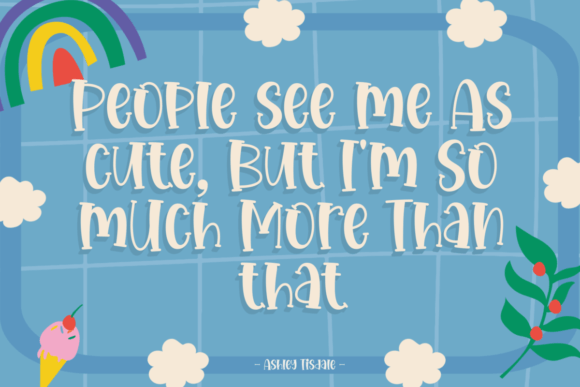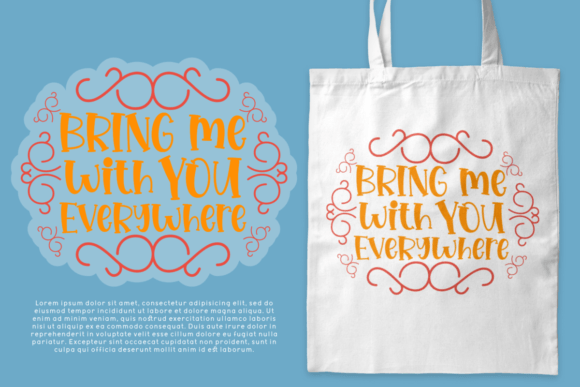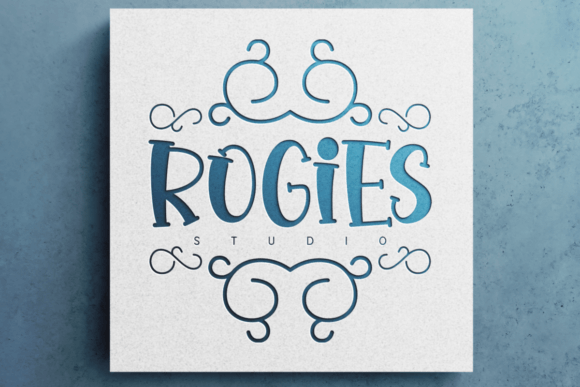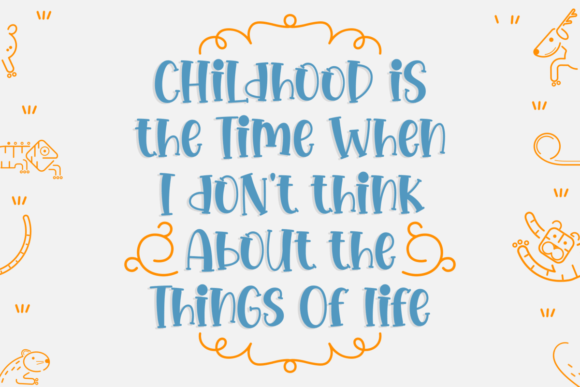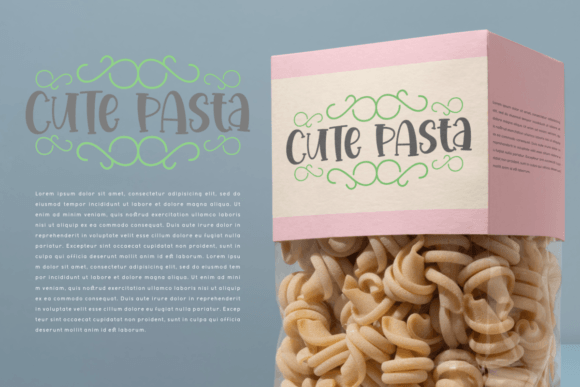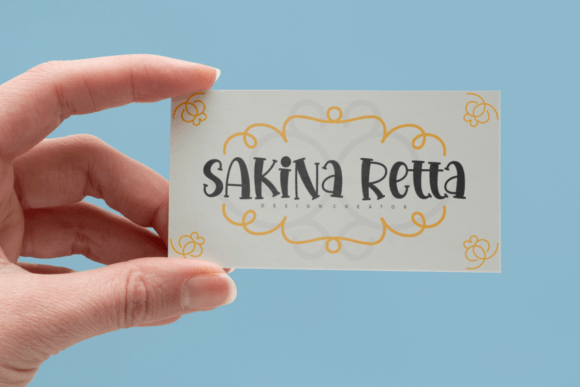
Meet Cashmere Sweater Font, a delightful and quirky serif font that’s sure to add a touch of whimsy to your designs. This charming font is perfect for posters, fabric prints, nursery decorations, papercrafts, and more – anything that requires a playful and creative touch. As a valuable addition to your design library, Cashmere Sweater Font will help you bring your ideas to life in a way that’s both fun and professional.
Cashmere Sweater Font Key Features
- Font Family: Cashmere Sweater, Cashmere Sweater Italic
- Unique Characteristics: Hand-drawn design with a mix of serif and script elements, creating a warm and elegant feel
Cashmere Sweater Font Review
I recently had the chance to work with the Cashmere Sweater Font, and I must say it’s a unique and stylish addition to any design project. Here’s my honest review:
- ✨ Elegant and refined aesthetic that’s perfect for luxury brands or high-end designs.
- ✨ High-quality rendering, even at smaller font sizes, which is essential for readability.
- ✨ Extensive language support, making it a great choice for global brands or multi-language projects.
- ⚠️ Limited bold and italic styles, which may limit its versatility in certain design contexts.
- ⚠️ May not be the best choice for display headings or titles, as it can become too ornate.
Overall, I think the Cashmere Sweater Font is a solid choice for designers who want to add a touch of sophistication to their projects. While it may not be suitable for every design scenario, it’s definitely worth considering for high-end or luxury brands. With some careful selection and use, this font can really elevate your designs and make them stand out.
The Cashmere Sweater Font is ideal for creative projects, such as:
– Invitations and event materials
– Fashion and lifestyle publications
– Personalized gifts and stationery